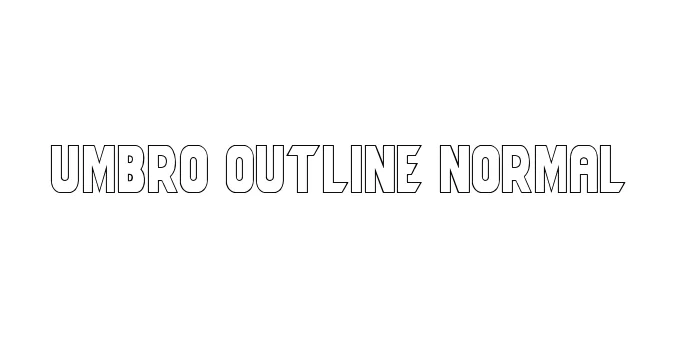
Umbro Outline Normal
Designed by Umbro Design Team
Umbro Outline Normal is a distinctive display typeface inspired by the iconic visual identity of the British sportswear brand, Umbro. Known for its strong association with football culture and athletic apparel, the font features a hollowed-out, geometric structure that emphasizes movement and performance. Its sharp angles and consistent stroke weights reflect the industrial and athletic precision required in high-performance sports branding.
This outline variant is particularly effective for layered typography and large-scale graphics. Since its emergence in the sports design scene, it has become a favorite for creating nostalgic 90s-inspired kits and contemporary street-style fashion layouts. The Umbro Outline Normal font provides a retro-modern aesthetic that bridges the gap between classic football heritage and modern digital design trends.
Umbro Outline Normal Best Uses
Perfect for player names and numbers on athletic kits.
Ideal for athletic brands and football club identities.
Great for bold graphic tees and fashion apparel.
Effective for large-scale sports tournament advertisements.